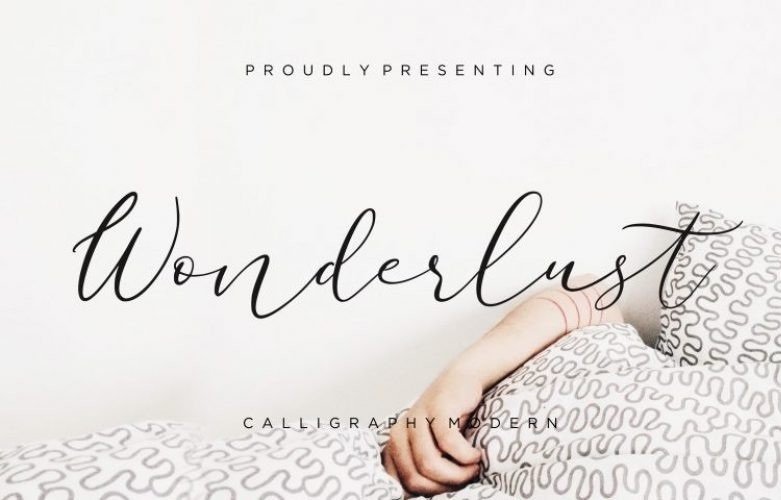
Wonderlust Font
Wonderlust Calligraphy Font is a new beautiful calligraphy font. Made from font designer named Creatype Studio. Wonderlust have a natural edges, so this font gives an authentic handcrafted feel style. Wonderlust is perfect for branding projects, logo, wedding designs, social media posts, advertisements, product packaging, product designs, label, photography, watermark, invitation, stationery and any projects that need handwriting taste.